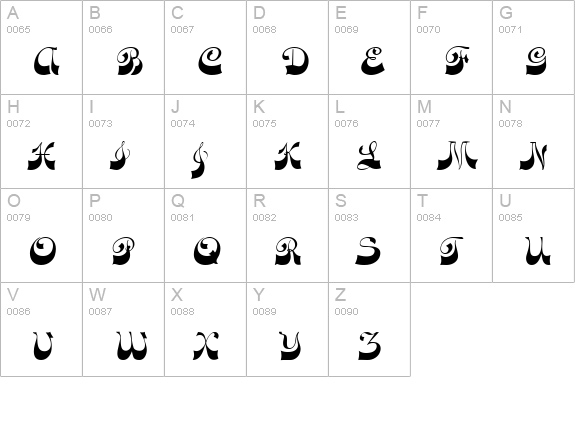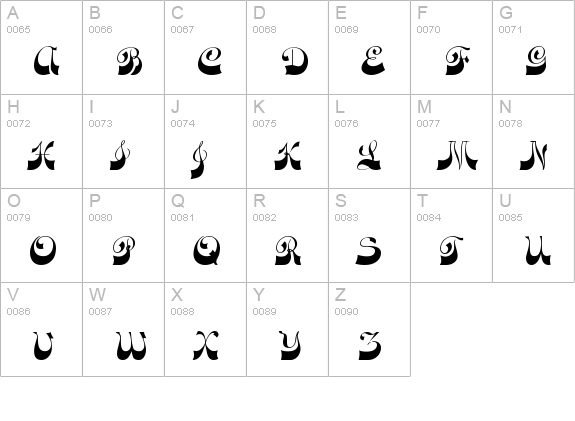
FunkyFaceUpright Regular is the standard, neutral variant in the FunkyFaceUpright typeface family \xE2\x80\x94 well suited to general body text, paragraphs, and standard typographic work.
FunkyFaceUpright Regular font is a playful and energetic typeface that exudes a sense of fun and creativity. With its funky and quirky design, this font is perfect for adding a touch of whimsy to any project. The bold and upright letters make a statement while remaining easy to read. What makes FunkyFaceUpright Regular font even more appealing is that it is available for free download at FontsMarket.com. This means you can easily access this unique font and use it in your personal and commercial projects without any cost. Don't miss out on the opportunity to add a fun and funky twist to your designs with FunkyFaceUpright Regular font!